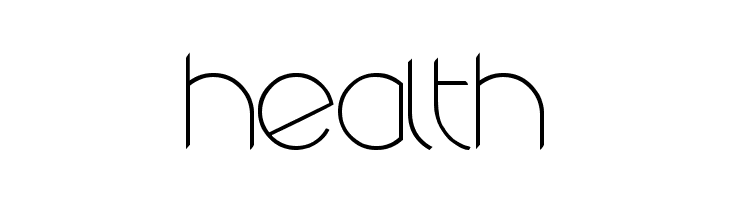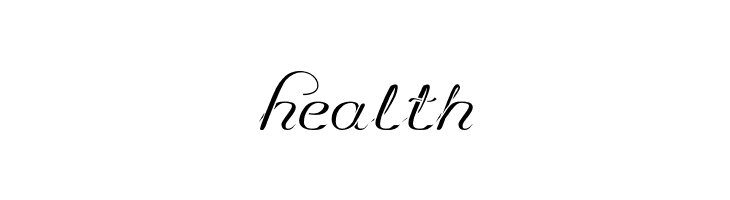
A sleek, geometric font with a modern and minimalist design.
A bold, classic serif font with strong, elegant strokes.
A bold slab serif font with strong, block-like serifs and rounded edges.
An elegant script font with intricate curves and decorative swashes.
An elegant script font with flowing, cursive letterforms and ornate details.
A bold, hand-drawn font with a rough, graffiti-like style.